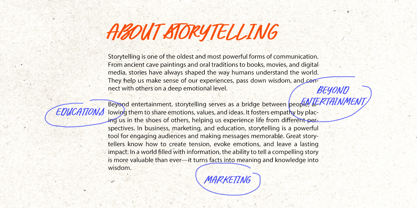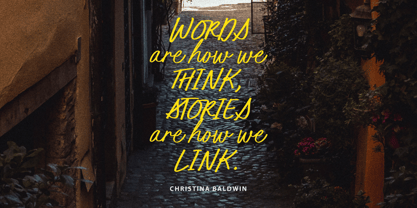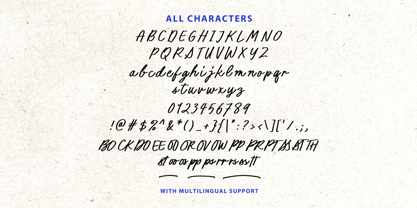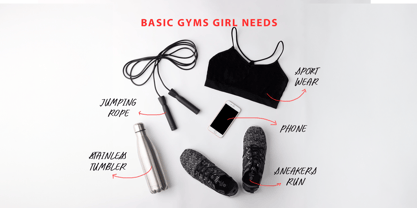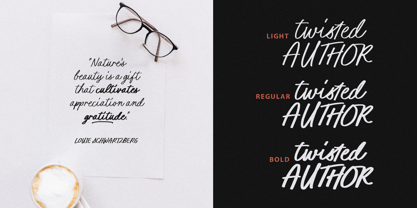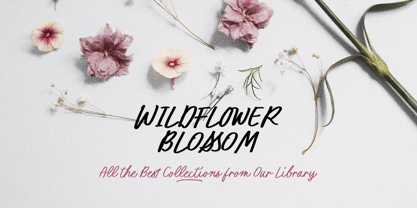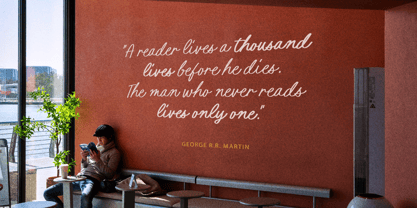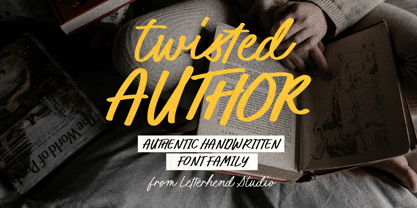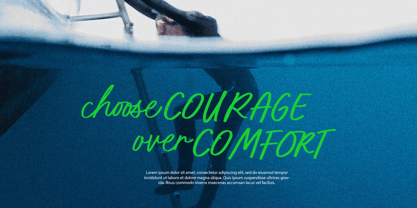
Twisted Author
Twisted Author is an authentic handwritten font family that captures the natural feel of expressive handwriting, perfect for storytelling designs, editorial layouts, book covers, and branding projects. With its organic brush strokes and fluid movement, this font brings warmth and character to any design. It includes three versatile styles—Regular, Bold, and Light—allowing you to create dynamic and cohesive typographic compositions.
Features :
• Uppercase & lowercase
• Numbers and punctuation
• Alternates & Ligatures
• Multilingual Support